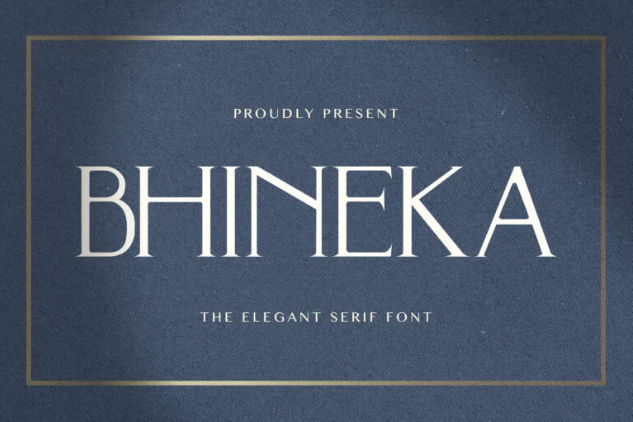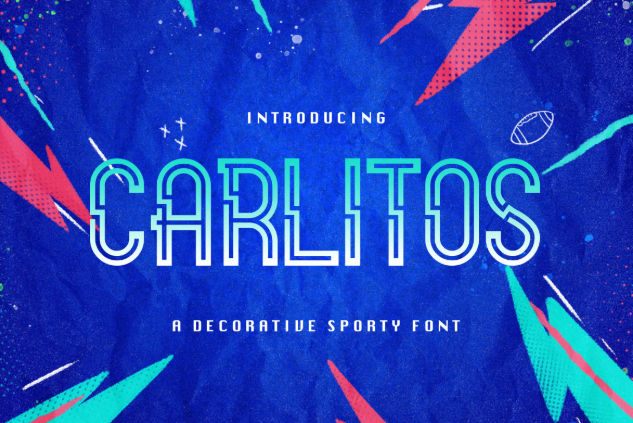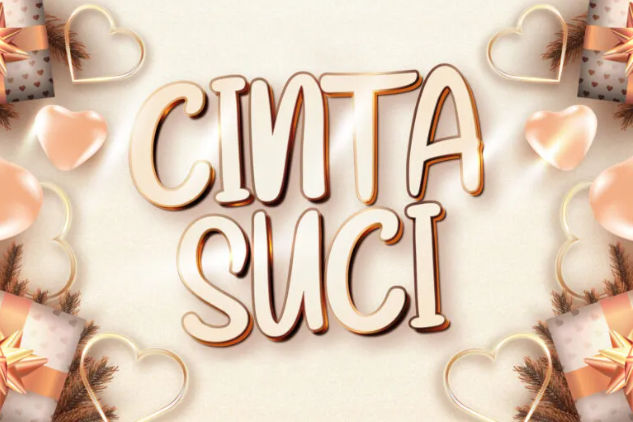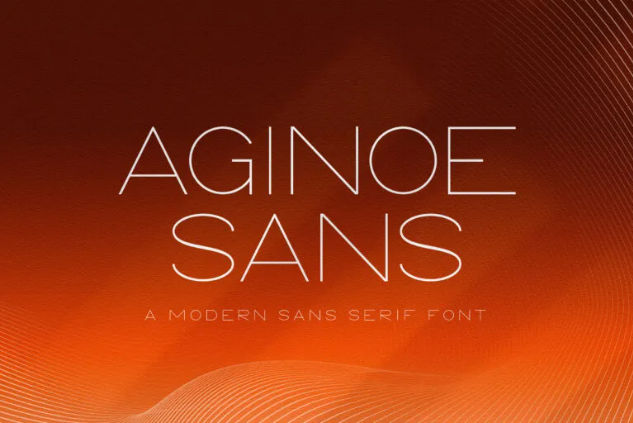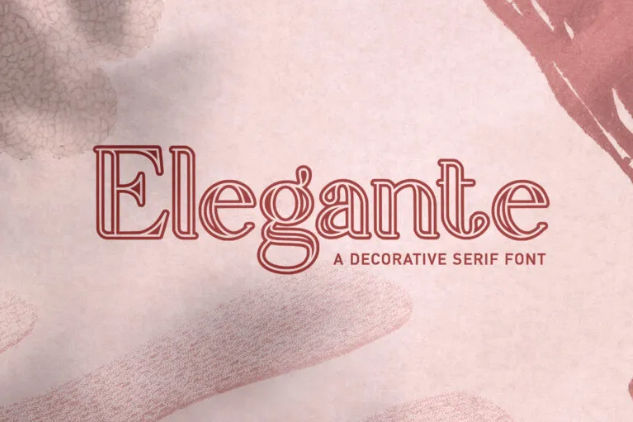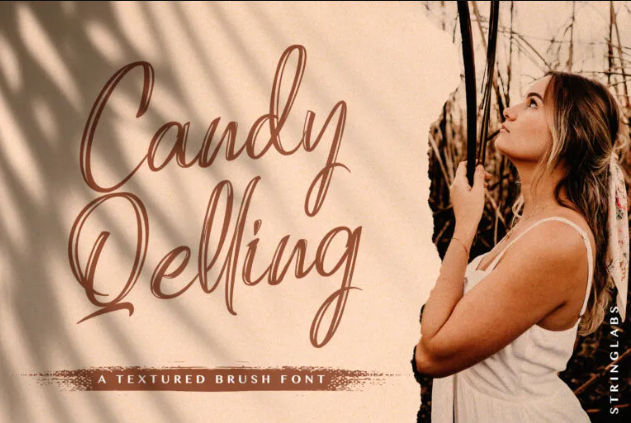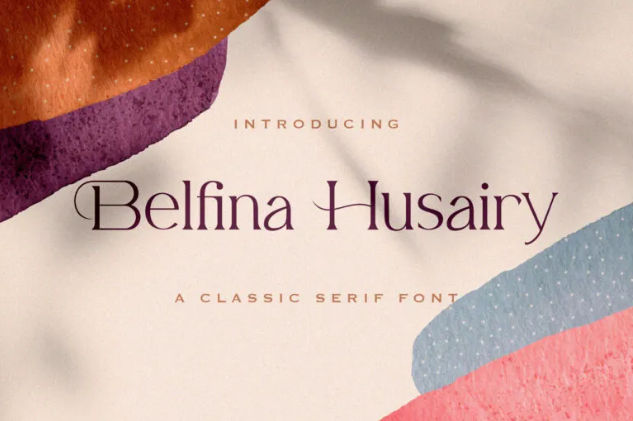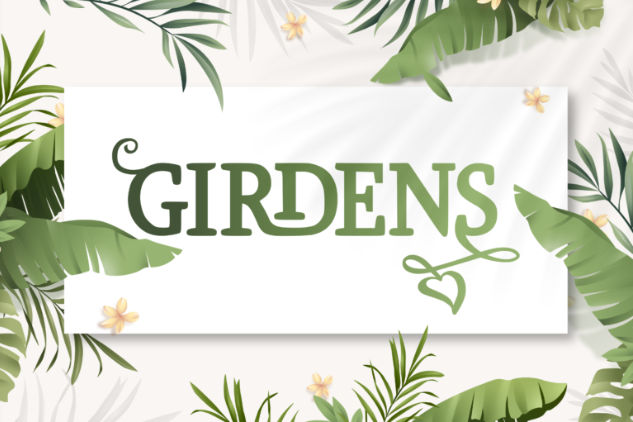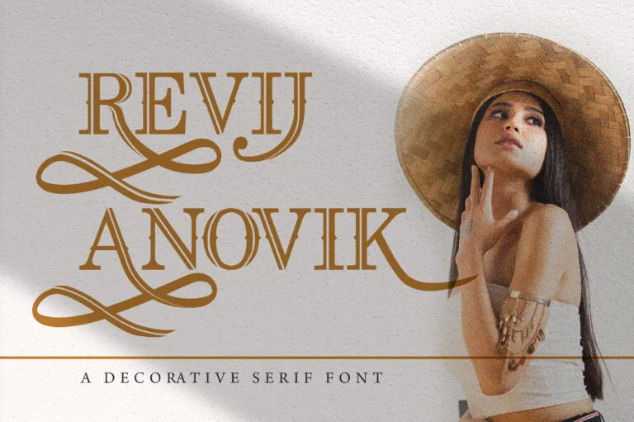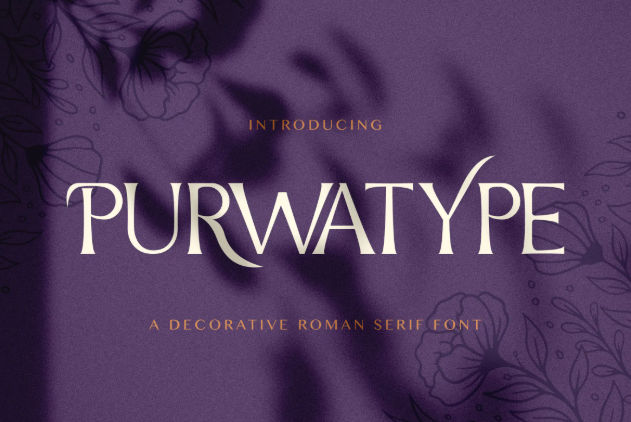
Best 20 Sustainable Font Choices in Digital Design
Sustainable font choice in digital design is key to creating an efficient and eco-friendly website. Opting for an optimized, readable typeface can improve load times, reduce energy usage, and support a more sustainable digital environment.
Sustainable Font Choice in Digital Design
When opting for sustainable fonts, we can explore typefaces that enhance design while supporting performance and sustainability. Check out the top 20 sustainable fonts from our studio!
1. Bhineka
Starting with Bhineka, an elegant serif font. With a size of no more than 100kb, this font will ease your load times and reduce energy usage. Moreover, this font will not crowd your design since it has a slender typeface.
2. Elegante
As a sustainable font, Elegante takes the ink-saving route. This unique, decorative serif font uses only thin outlines to make each letter. While saving ink usage, you can also elevate your design by introducing the color scheme into the typography.
3. Belfina Husairy
Belfina Husairy is another serif font selection, this one has a little more flow to it. The font introduces subtle swashes and a unique typeface on certain letters. Still, this font also has a small file size and eco-friendly print capability.
4. Girdens
If you want an expressive and natural look on your design, try Girdens. While wildly representing vines, Girdens still keeps a conservative file size for better load times and storage usage.
5. Revij Anovik
This one’s sustainable font choice in digital design using a decorative serif font. Revij Anovik uses a transparent stroke on each letter to reduce ink usage while keeping the font relatively bold.
6. Purwatype
Purwatype is a serif font with great readability while preserving file size. This font already supports vector scalable outlines for easy sizing without losing its sharpness or clarity.
7. Virgiano
While other sustainable fonts usually use dots in the letter, Virgiano uses stripes to stay stylish. This sporty font only needs light colors to pop without being bold.
8. Demokrasi
Demokrasi is a sustainable decorative font with balanced letter spacing. Although using hollow-lines style, this font has high legibility to minimize misprints. You can merge your color scheme better using Demokrasi’s style.
9. Sporticular
Sporticular is a futuristic and sporty sustainable font choice in digital design. This maze-like font gets better legibility from its inner lines.
10. Carlitos
Carlitos adopts a dash of stencil font style and has a small size compared to other decorative fonts. It makes this font appear futuristic and vintage style–depending on your color scheme.
11. Heinzo
Create a unique cohesion between the background and typography using Heinzo. This display font only highlights the outline of the letter and your background can fill it—it promotes lesser ink utilization while allowing your creativity fill the void!
12. Zamoretta
Zamoretta is a monoline display font with a nice, clean, and neat cut. These attributes depict one complete pack of sustainable font choices in digital design that allow you to save ink usage and file storage,
13. Cinta Suci
Cinta Suci is a bubbly font with a relatively small file size. This display font is unique because it also acts like a script font on the lowercase letters. Basically, Cinta Suci gives you two styles in one font.
14. Justhin
As the name suggests, Justhin fits sustainable font criteria with its just-thin characteristic. This monoline signature font effectively reduces ink usage and is lightweight in file size.
15. Welingtom
A futuristic display font that cleverly considers sustainability with its outlined font style. Welingtom gains its boldness from its hollow body rather than a solid-inked letter.
16. Aginoe Sans
The Aginoe Sans font is a simple and thin sans serif font. On top of that, the font has balanced letter spacing suitable for web use or eco-friendly prints.
17. Piemonte
Piemonte is a casual and clean choice for your sustainability-focused project by the file size alone. With its elongated style, this font is simply timeless and memorable.
18. Queental
A simple and elegant sans font family with a considerably small file size. Within its 400kb size, you can get 6 Queental font styles. No need to waste time looking for some complementary fonts when you get this 6-in-1 pack.
Also Read: Introducing 12 Formidable Futuristic Sans Serif Fonts
19. Miyabon
A brush font to spice up the list, here’s Miyabon. This font subtly hollows its strokes with precise cuts, making the letters appear shiny. Its textured strokes also create a 3D effect on your designs.
20. Candy Qelling
Candy Qelling exudes feminine vibes. This textured brush font despises bold strokes, so it prefers being thin. With this style, Candy Qelling unironically became natural and luxurious.
Ready to Embrace Sustainability?
Opting for sustainable font choice in digital design is a simple yet impactful way to improve both user experience and environmental sustainability. Quickly start applying these font choices to your next project!